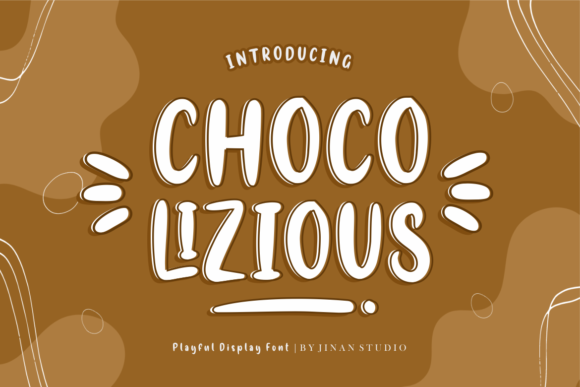
Indulge in the Sweet Taste of Creativity
Have you ever found yourself stuck in front of a blank page, struggling to find the perfect words to express your feelings? Maybe it’s a love letter, a wedding invitation, or a birthday card – whatever it is, you want it to be perfect. That’s where the magic of typography comes in, and that’s exactly where the Chocolizious Font comes to play.
This delightful display font is more than just a pretty face – it’s a tool that can add a touch of romance and whimsy to any design. From greeting cards to headlines, Chocolizious Font is the perfect companion for any creative project. With its playful and delicate style, it’s a must-have for designers looking to add a personal touch to their work.
Chocolizious Font Key Features
- Font Family: Chocolizious, Chocolizious Bold, Chocolizious Italic, Chocolizious Bold Italic
- Unique Characteristic: Hand-drawn design with a rich, chocolate-inspired texture, making it perfect for food, dessert, and confectionery-related designs
Chocolizious Font Review
When I first saw the Chocolizious Font, I was immediately drawn in by its unique, playful design ✨. The font has a distinct, hand-drawn feel that makes it perfect for adding a touch of whimsy to your designs. The character set is comprehensive, and the font is highly legible even at small sizes.
The font’s versatility is another major strength ✨. Whether you’re looking to create a sweet treat-themed brand or simply want to add some fun to a brochure or flyer, Chocolizious Font is a great choice. It’s also highly customizable, allowing you to adjust the color, size, and spacing to suit your needs.
One of the main limitations of the Chocolizious Font is its relatively limited range of weights ✨. While the font is available in a range of sizes, it would be great to see more options for light and bold text. Additionally, the font may not be the best choice for formal or professional designs, as its playful nature may clash with more serious branding.
Overall, the Chocolizious Font is a great choice for designers looking to add a touch of fun and whimsy to their designs. While it may have some limitations, its unique design and versatility make it a valuable addition to any font collection.
Features
- Comprehensive character set
- Highly legible at small sizes
- Perfect for playful, whimsical designs
- Great for sweet treat-themed brands
For the best results, use Chocolizious Font in bold or italic styles to add emphasis. You can also combine it with other fonts to create a unique look. Experiment with different font sizes and colors to find the perfect combination.
Chocolizious Font is perfect for creating eye-catching titles, headings, and labels. It’s also great for adding a touch of whimsy to your designs, such as in food blogs, kids’ party invitations, or dessert menus.